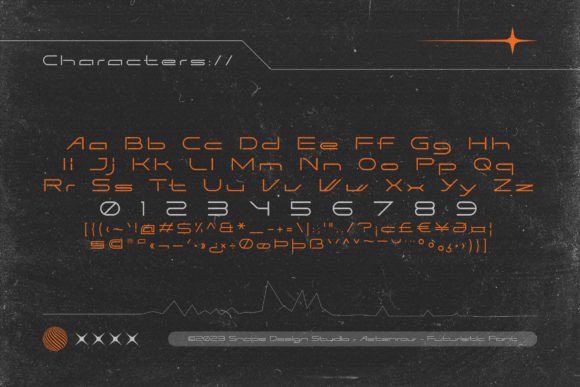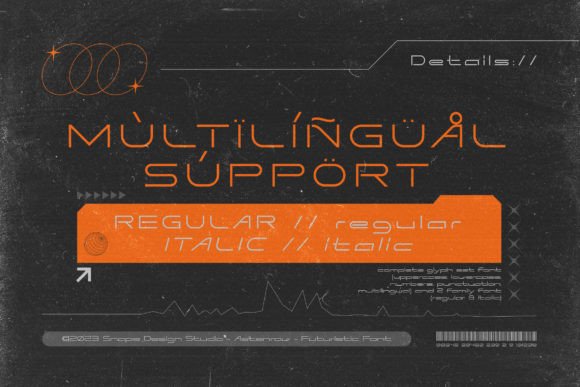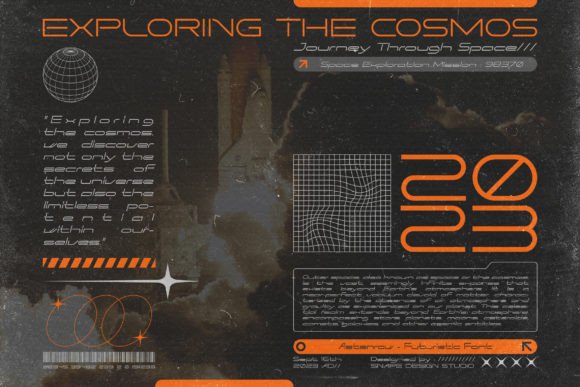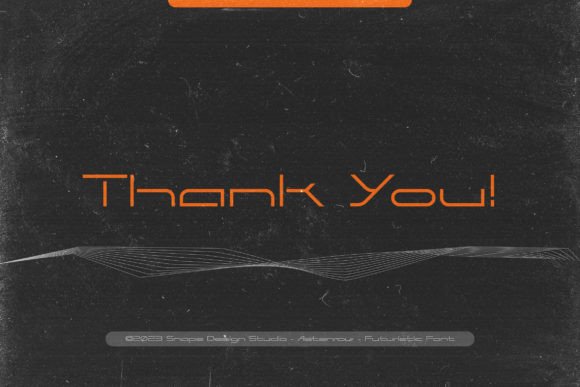
Introducing Astenrow Font: The Future of Typography
In the ever-evolving world of design, typography plays a crucial role in conveying messages, expressing creativity, and building brand identities. As technology continues to advance, the demand for innovative and futuristic fonts has never been higher. This is where Astenrow Font comes into play, revolutionizing the realm of typography with its cutting-edge, sans serif design.
What is Astenrow Font?
Astenrow Font is a futuristic sans serif font collection that embodies the perfect fusion of technology and artistry. Its sleek, dynamic, and visually striking characters are meticulously crafted to redefine the future of design. With a focus on innovation and aesthetics, Astenrow Font is poised to become the go-to choice for designers and crafters seeking a modern edge.
Key Features of Astenrow Font
- Cutting-edge design: Astenrow Font boasts a unique and futuristic design that sets it apart from traditional fonts.
- Sleek and dynamic characters: The font’s characters are designed to be sleek, dynamic, and visually striking, making it perfect for sci-fi themes, tech branding, and modern designs.
- Versatility: Astenrow Font is incredibly versatile, allowing designers to use it for a wide range of projects, from digital media to print materials.
- User-friendly customization options: The font offers a range of customization options, making it easy for designers to tailor it to their specific needs.
Perfect for Sci-Fi Themes and Tech Branding
Astenrow Font is particularly well-suited for sci-fi themes and tech branding, where a modern and futuristic aesthetic is essential. Its sleek and dynamic characters evoke a sense of innovation and forward-thinking, making it perfect for:
- Sci-fi movies and TV shows: Astenrow Font is ideal for creating titles, posters, and promotional materials that require a futuristic and otherworldly feel.
- Tech startups and companies: The font is perfect for tech branding, allowing companies to convey a sense of innovation and modernity.
- Video games: Astenrow Font can be used to create engaging and immersive gaming experiences, with its sleek and dynamic characters adding to the overall aesthetic.
Empowering Creativity
Astenrow Font is designed to empower creativity, providing designers with a versatile and user-friendly tool to bring their ideas to life. With its cutting-edge design and customization options, the font allows designers to:
- Experiment with new ideas: Astenrow Font’s versatility and flexibility make it easy for designers to try out new and innovative ideas.
- Push the boundaries of typography: The font’s futuristic design encourages designers to push the boundaries of typography and explore new creative possibilities.
- Create engaging and immersive experiences: Astenrow Font’s sleek and dynamic characters help designers create engaging and immersive experiences that capture audiences’ attention.
| Font Name | Astenrow Font |
| Author | snapedsgn |
In conclusion, Astenrow Font is a game-changing addition to the world of typography, offering a futuristic sans serif font that redefines the future of design. Its cutting-edge design, versatility, and user-friendly customization options make it perfect for designers and crafters seeking a modern edge. Whether you’re working on a sci-fi theme, tech branding, or any project that demands a modern aesthetic, Astenrow Font is the perfect choice.